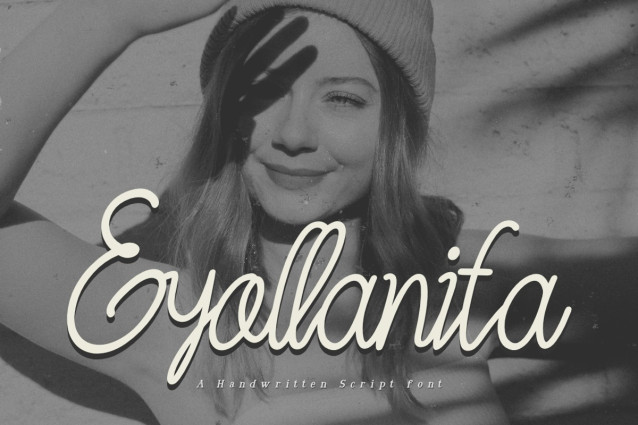
Eyollanita Script Font
Eyollanita Script Font is made with a high premium quality level which you can use as flyers, quotes, posters, banners, packaging, merchandise, logotypes and much more.